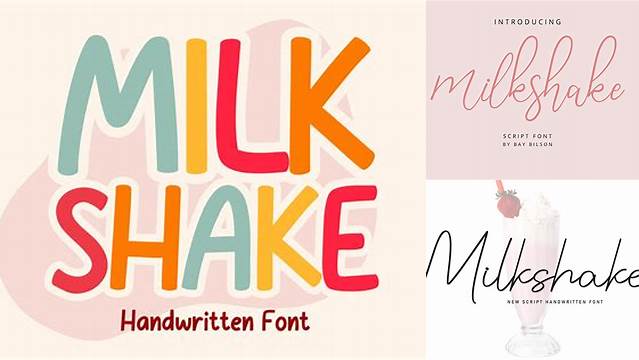
Milkshake Font: The Ultimate Guide For Designers
Hey everyone! Ever stumbled upon a font that just makes you smile? For me, that font is Milkshake. It's bubbly, playful, and adds a dash of fun to any project. In this article, we're going to dive deep into everything Milkshake – from its design origins to how you can use it to make your work pop. So, grab a virtual milkshake (or the real deal!) and let’s get started!
What is Milkshake Font?
Milkshake font is a delightful display typeface characterized by its thick, rounded strokes and playful curves. Designed with a retro yet modern feel, it evokes a sense of nostalgia while maintaining a fresh and contemporary appeal. Its bouncy baseline and whimsical letterforms make it a standout choice for projects that need a touch of personality and charm. Think of it as the font equivalent of a cheerful smile – instantly uplifting and engaging. But beyond its aesthetics, understanding the nuances of Milkshake font – its history, design principles, and optimal uses – is key to leveraging its full potential. So, what exactly makes Milkshake font tick? Let’s explore its creation and the design philosophy behind it.
The History and Inspiration Behind Milkshake Font
The history of Milkshake font is as sweet as its appearance. The font's creation story often intertwines with the designer’s personal inspiration, reflecting a desire to bring a specific mood or aesthetic to the world of typography. Milkshake font didn't just appear out of thin air; it's a product of thoughtful design, likely inspired by retro typography, hand-lettering styles, and a general sense of fun. Imagine the designer sketching away, perhaps fueled by actual milkshakes, aiming to capture that lighthearted energy in every curve and swirl. The font likely went through numerous iterations, each refining its personality and ensuring its readability across various applications. Understanding this background helps us appreciate the artistry and intention behind Milkshake font, making it more than just a typeface – it's a story told through letterforms.
Key Design Characteristics of Milkshake Font
The defining features of Milkshake font are what make it instantly recognizable and appealing. Its thick, rounded strokes give it a bold presence, while the playful curves and bouncy baseline inject a sense of whimsy. The overall effect is a font that feels both substantial and lighthearted. Milkshake font's letterforms often feature unique quirks, such as exaggerated terminals or unexpected connections, adding to its distinctive character. These design choices contribute to its overall charm and make it stand out from more conventional typefaces. It’s the kind of font that demands attention without being aggressive, perfect for grabbing the eye and conveying a message with a touch of sweetness. Recognizing these key design characteristics is crucial for determining when and how to best utilize Milkshake font in your projects.
Best Uses for Milkshake Font in Graphic Design
Okay, so where does Milkshake font truly shine? This font is a superstar when it comes to projects that need a playful and inviting vibe. Think logos for ice cream parlors (duh!), branding for children's products, cheerful posters, eye-catching headlines, and social media graphics that need that extra oomph. Milkshake font also works wonders for packaging design, particularly for food and beverage items where a fun and friendly aesthetic is desired. However, because of its distinct personality, Milkshake font might not be the best choice for formal or corporate communications. Imagine using it for a law firm's website – probably not the right fit! Understanding the best use cases for Milkshake font helps ensure that your designs are not only visually appealing but also effective in conveying the right message.
Milkshake Font vs. Other Script and Display Fonts
So, how does Milkshake font stack up against other script and display fonts? Well, while there are tons of cool fonts out there, Milkshake font holds its own with its unique blend of retro charm and modern sensibilities. Compared to more formal scripts, Milkshake font is much more casual and approachable. And while some display fonts can be overly serious or edgy, Milkshake font maintains a sense of playfulness. It's like the fun-loving cousin in the font family – always ready to add a smile to your face. Other script fonts might lean towards elegance or sophistication, while display fonts can range from minimalist to highly decorative. Milkshake font's sweet spot is in that space where fun meets functionality, making it a versatile choice for projects that need a touch of personality without sacrificing readability. Understanding these distinctions helps you make informed decisions about which font best suits your design needs.
Pairing Milkshake Font with Complementary Fonts
Now, let's talk font pairings! Milkshake font is a bit of a diva – it loves to be the star of the show, but it also plays well with others. The key is to choose complementary fonts that don't compete for attention but instead provide a harmonious balance. Think clean, simple sans-serif fonts for body text, like Open Sans, Lato, or Montserrat. These fonts provide a neutral backdrop that allows Milkshake font to shine in headlines or titles. Another approach is to pair Milkshake font with a more subdued serif font for a touch of contrast and sophistication. Experimenting with different font pairings is part of the fun of design, but the goal is always to create a cohesive and visually appealing composition. When pairing with Milkshake font, remember to keep the overall aesthetic in mind and choose fonts that enhance its playful personality without overshadowing it.
Milkshake Font in Logo Design: Examples and Inspiration
Logos are the face of a brand, and Milkshake font can be a fantastic choice for creating a memorable and engaging visual identity. Its playful nature makes it particularly well-suited for businesses that want to project a friendly, approachable image. Think about ice cream shops, bakeries, children's boutiques, or any brand that wants to evoke a sense of fun and nostalgia. There are tons of examples out there of logos that successfully utilize Milkshake font. Imagine a logo for a retro-themed diner, with the word "Diner" rendered in Milkshake font – instantly, you get a sense of the establishment's vibe. Or consider a logo for a handmade crafts business, where the font's whimsical curves add a personal touch. When using Milkshake font in logo design, it's important to consider the overall brand personality and ensure that the font aligns with the message you want to convey.
Using Milkshake Font for Branding and Marketing Materials
Beyond logos, Milkshake font can be a powerful tool for branding and marketing materials. Its distinctive character helps create a consistent visual identity across various platforms, from websites and social media to packaging and print collateral. Imagine a series of social media posts for a local bakery, all featuring headlines in Milkshake font – the consistency helps build brand recognition and reinforces the bakery's playful personality. Milkshake font can also be used effectively in marketing materials such as brochures, flyers, and advertisements, adding a touch of whimsy and making the message more engaging. However, it's important to use Milkshake font strategically, avoiding overuse that could dilute its impact. Like any design element, Milkshake font is most effective when used purposefully and in harmony with other visual elements.
Milkshake Font: A Conclusion
So, there you have it! A deep dive into the wonderful world of Milkshake font. From its playful design to its versatile applications, Milkshake font is a fantastic choice for projects that need a touch of fun and personality. Remember to use it strategically, pair it wisely, and always prioritize readability. Now go out there and create something amazing with Milkshake font! I hope you guys enjoyed this deep dive, and I can't wait to see what you create with this delightful font!